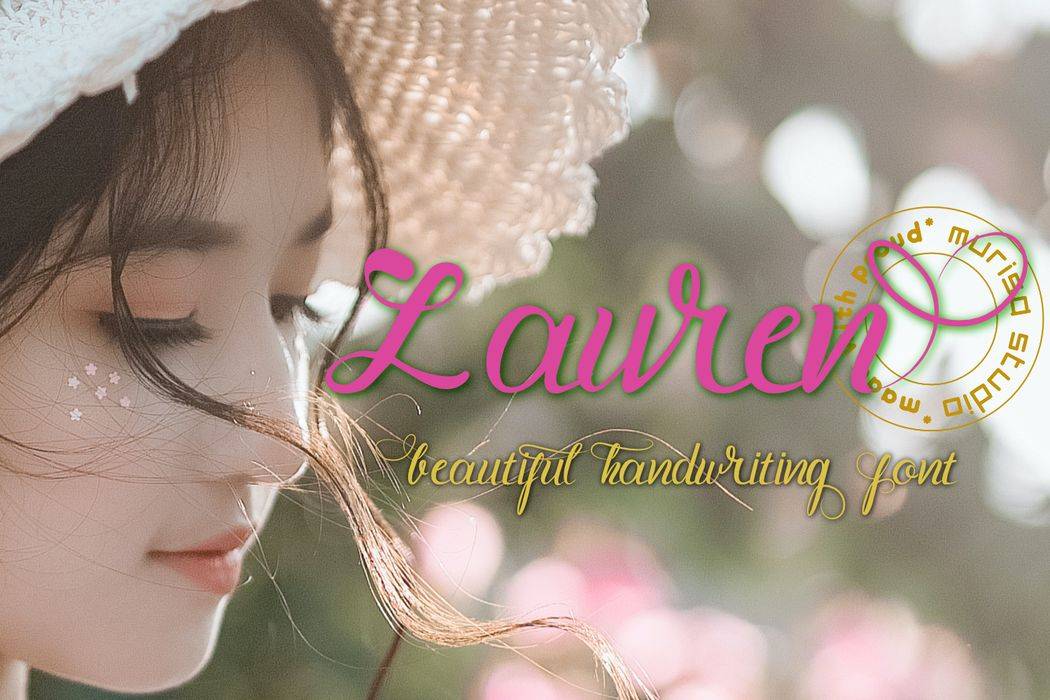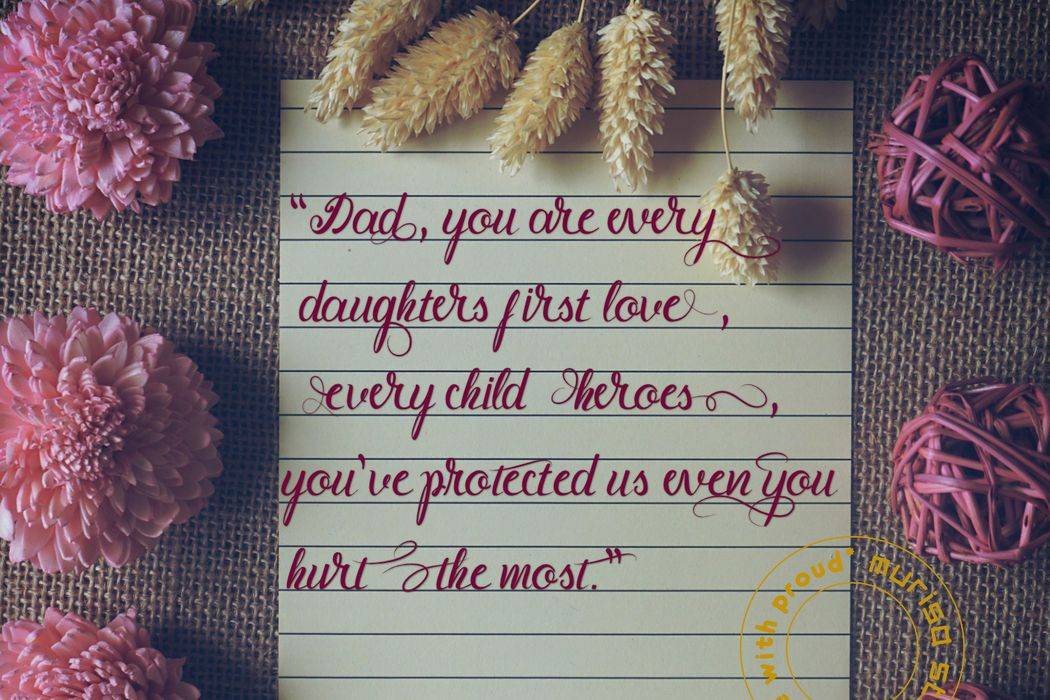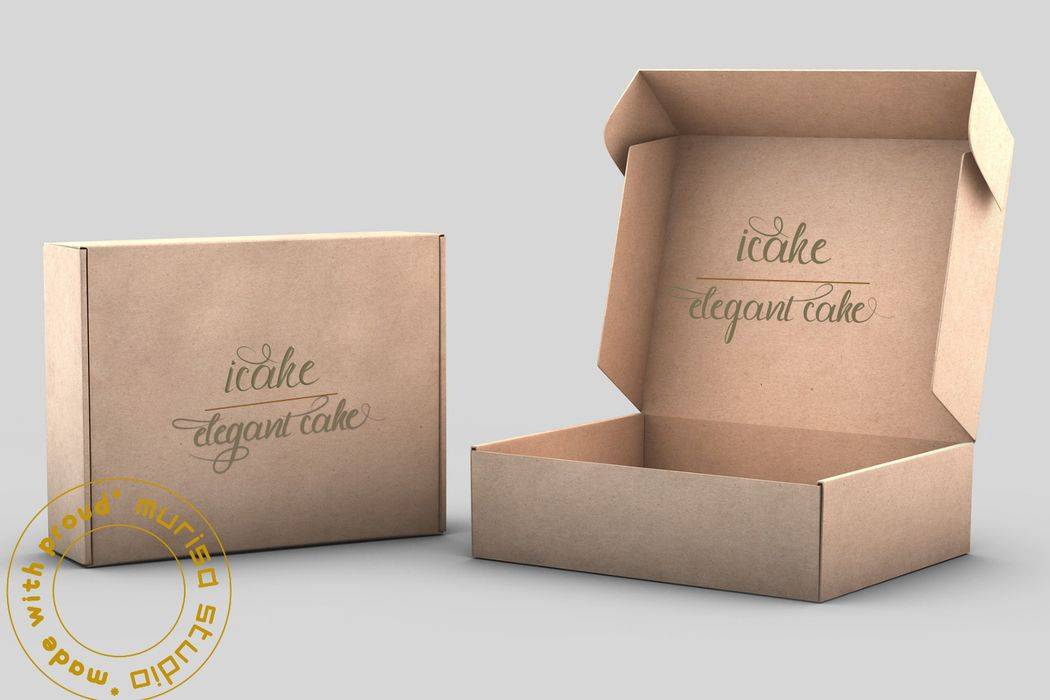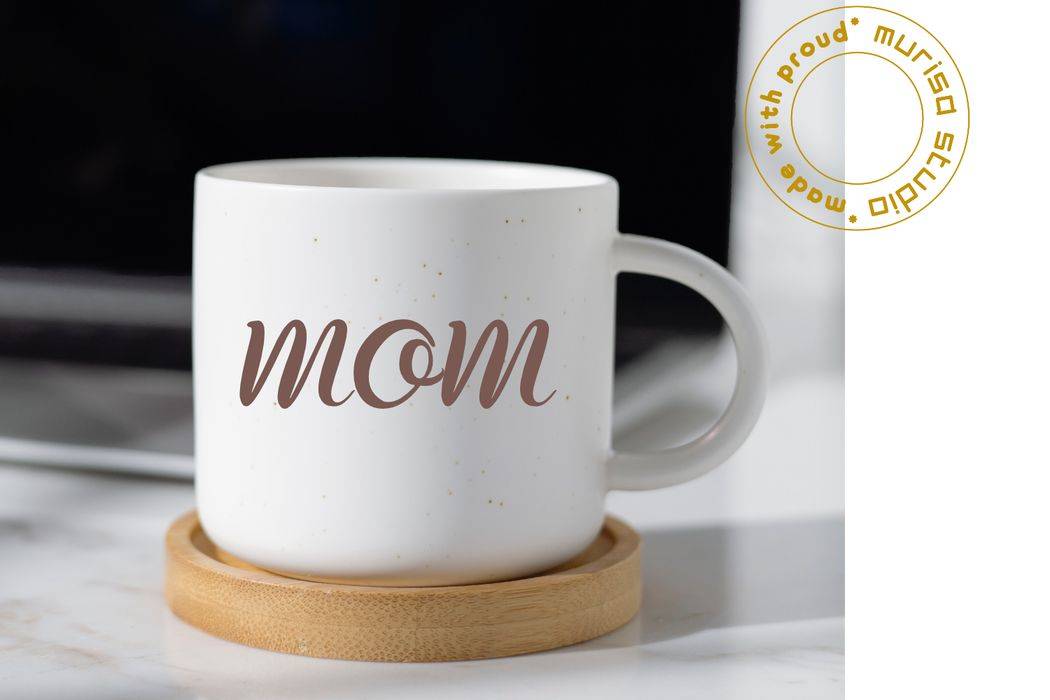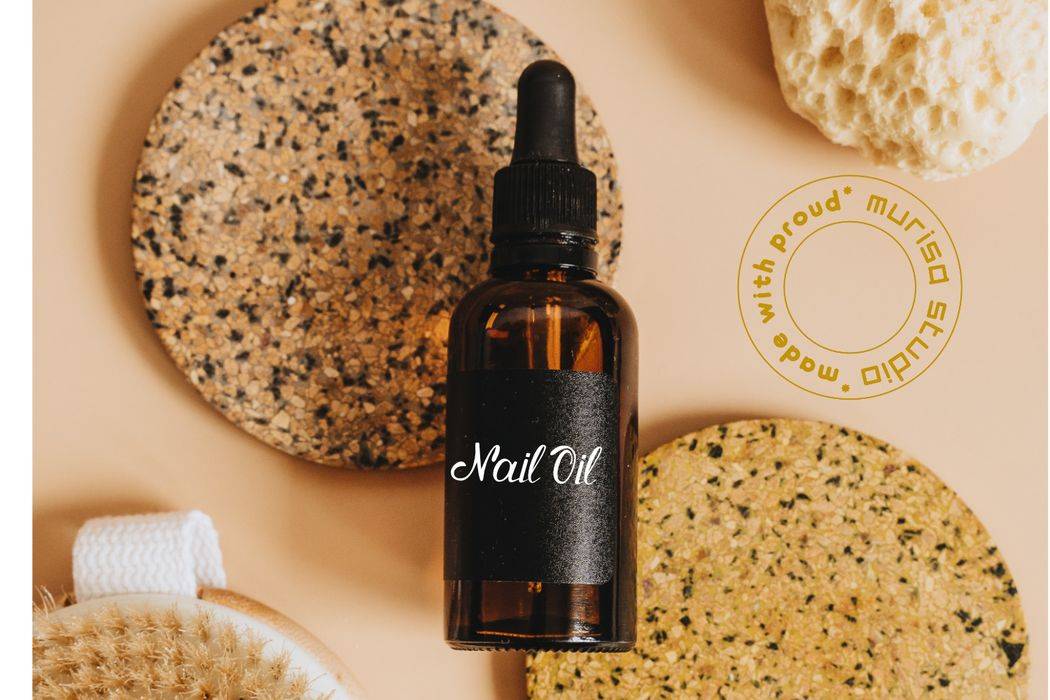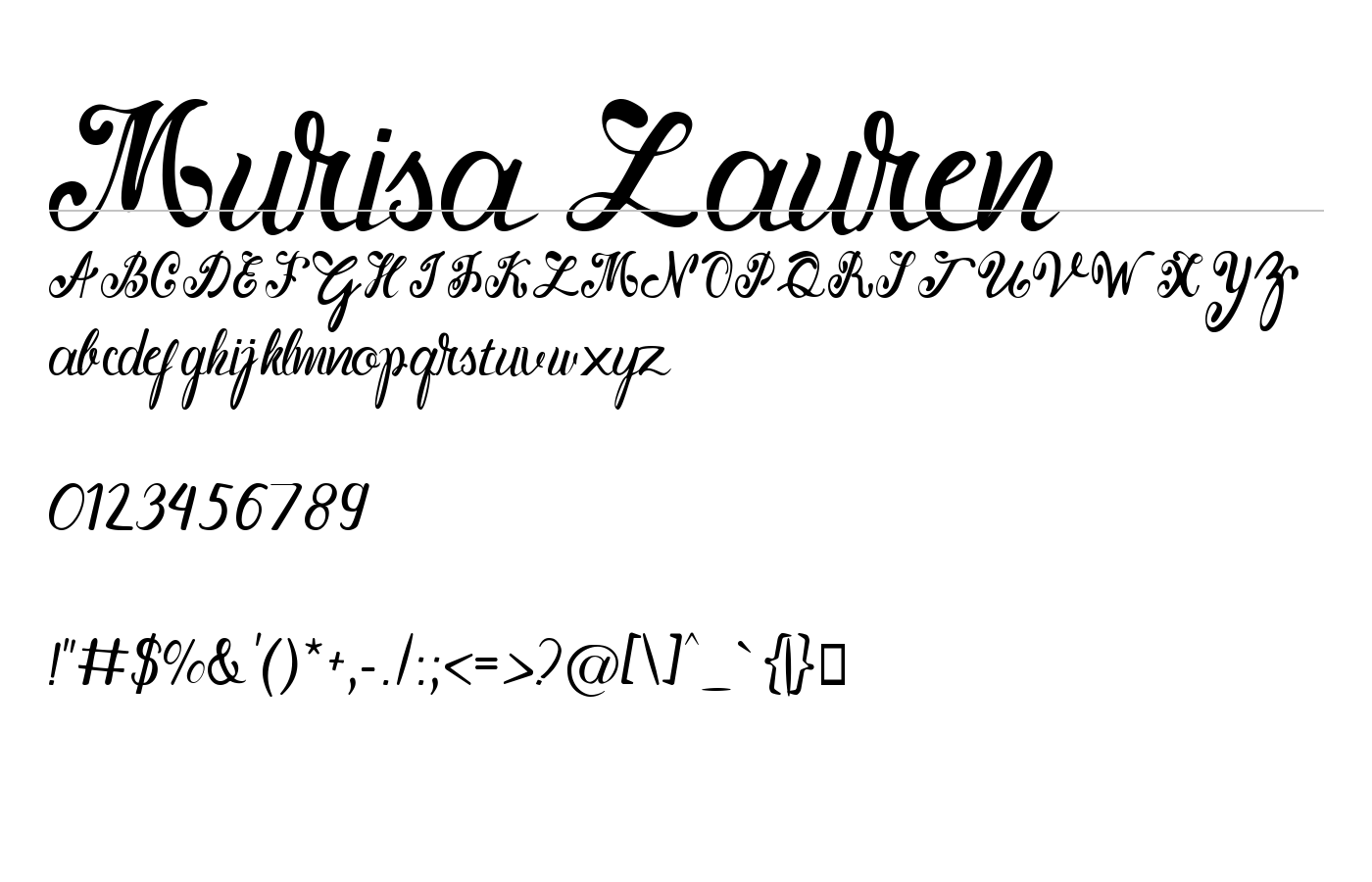
Murisa Lauren is an elegant script font featuring flowing, delicate strokes with a graceful, handwritten feel. Its tall x-height and smooth curves make it stylish and readable, perfect for adding a sophisticated, artistic touch to invitations, branding, and decorative headlines. This font works beautifully in fashion, luxury, and creative projects where a refined, personal look is desired.
Murisa Lauren Font
About Murisa Lauren Font